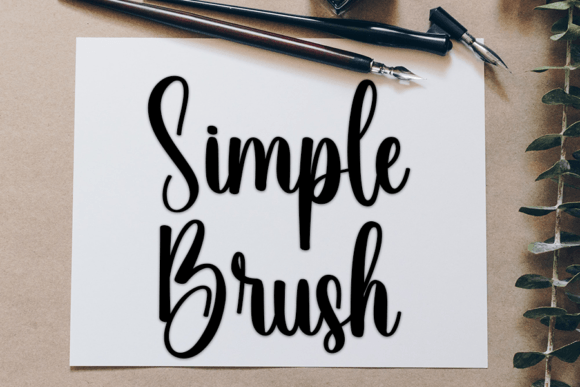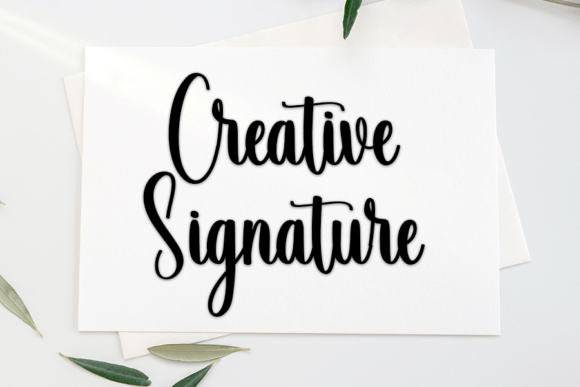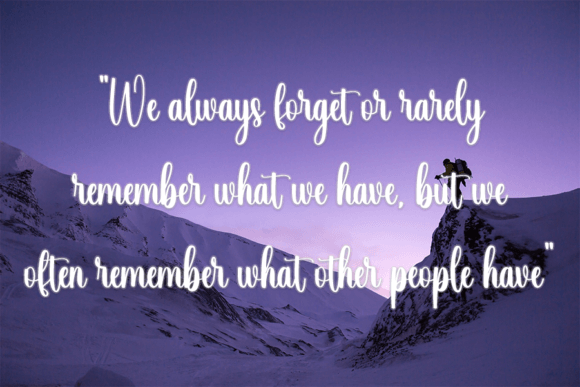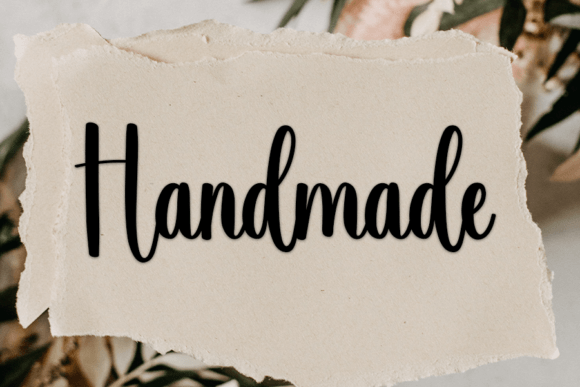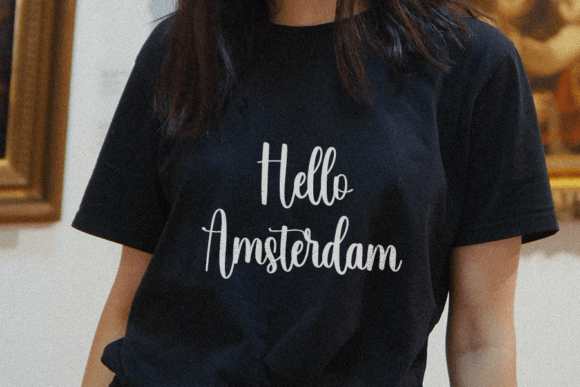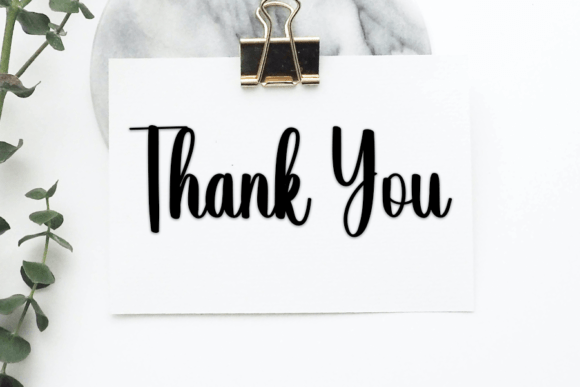
Easter Font: Elevate Your Designs with a Delicate Handwritten Style
Easter is a beautiful, delicate handwritten font that has been carefully crafted to add a touch of elegance and uniqueness to your designs. This versatile font is perfect for a wide range of creative projects, from writing letters and invitations to designing food products, titles, and more.
What is Easter Font?
Easter font is a carefully designed handwritten font that exudes a sense of sophistication and charm. Its delicate strokes and elegant letterforms make it an ideal choice for designers and crafters looking to add a personal touch to their work. Whether you’re creating wedding invitations, branding materials, or social media graphics, Easter font is sure to impress.
Key Features of Easter Font
- Delicate Handwritten Style: Easter font boasts a beautiful, handwritten style that adds a touch of warmth and personality to your designs.
- Versatile: This font can be used for a wide range of creative projects, from letters and invitations to food products, titles, and more.
- Unique and Cool Design: Easter font has a unique and cool design that sets it apart from other fonts, making your designs stand out from the crowd.
- Elegant Letterforms: The font features elegant letterforms that are perfect for creating sophisticated and eye-catching designs.
Use Cases for Easter Font
Easter font is an incredibly versatile font that can be used for a variety of creative projects. Here are some use cases to get you started:
- Wedding Invitations: Add a touch of elegance and sophistication to your wedding invitations with Easter font.
- Food Product Design: Use Easter font to create eye-catching labels and packaging for your food products.
- Social Media Graphics: Elevate your social media graphics with Easter font and make your posts stand out.
- Lettering and Calligraphy: Easter font is perfect for creating beautiful lettering and calligraphy pieces.
- Branding and Identity: Use Easter font to create a unique and memorable brand identity.
- Use for Headlines and Titles: Easter font is perfect for creating eye-catching headlines and titles.